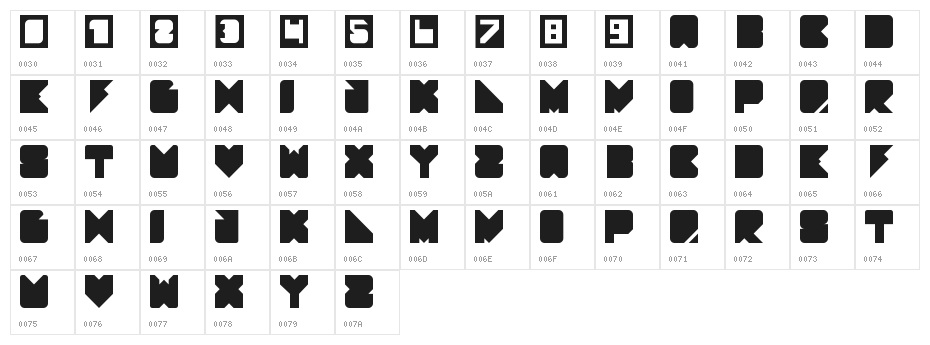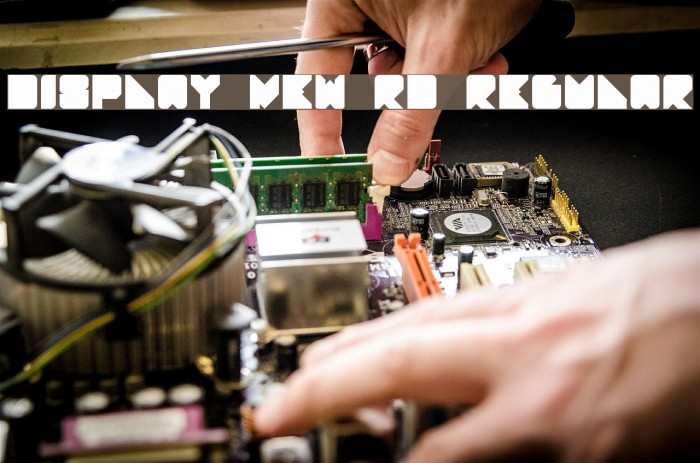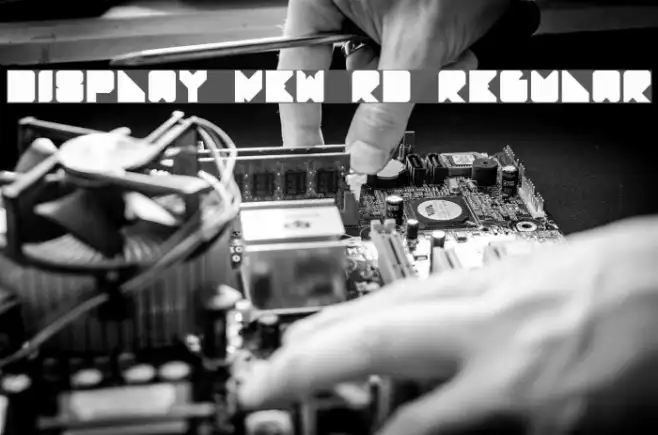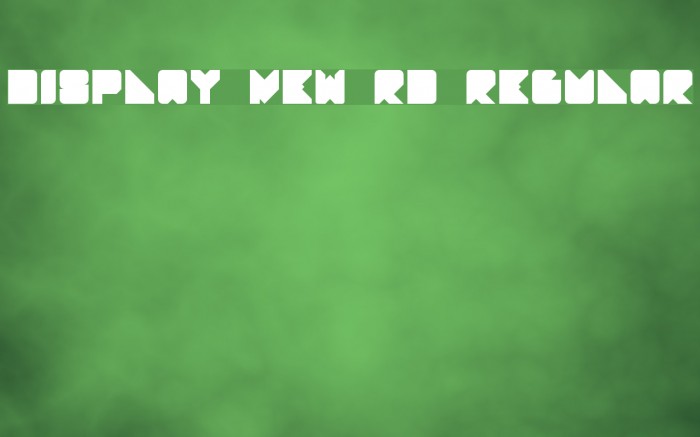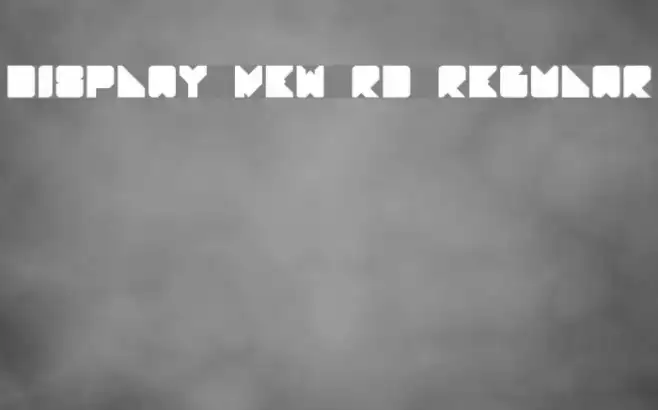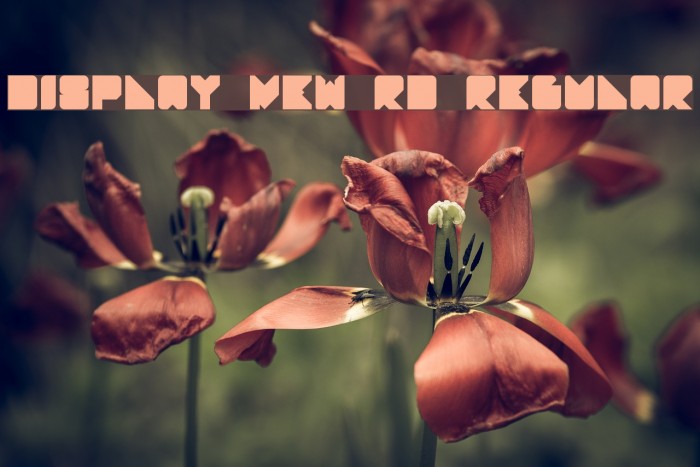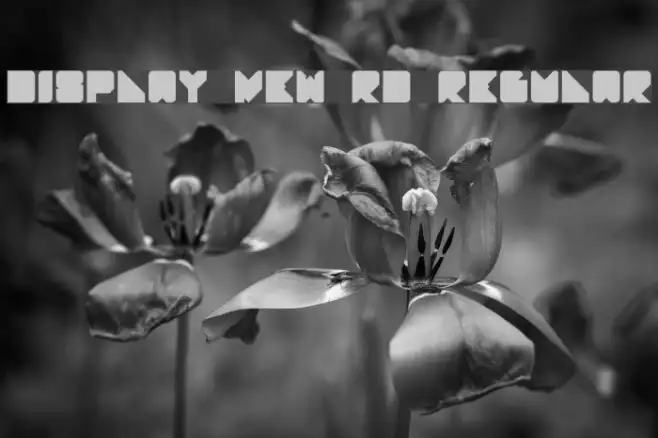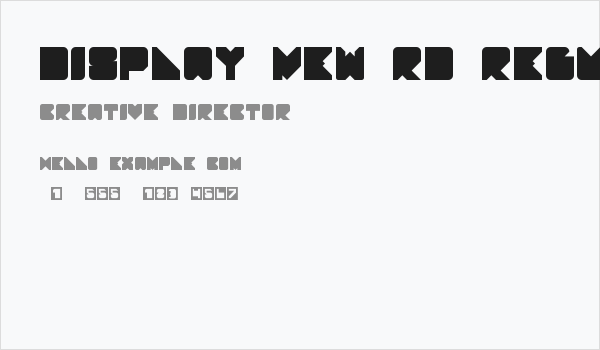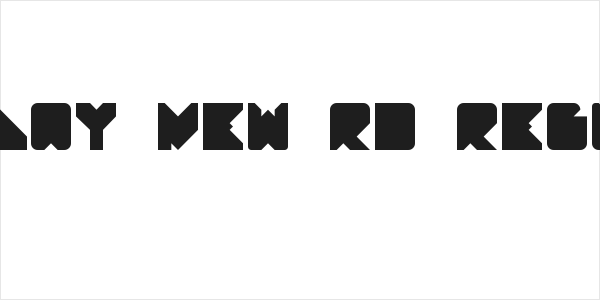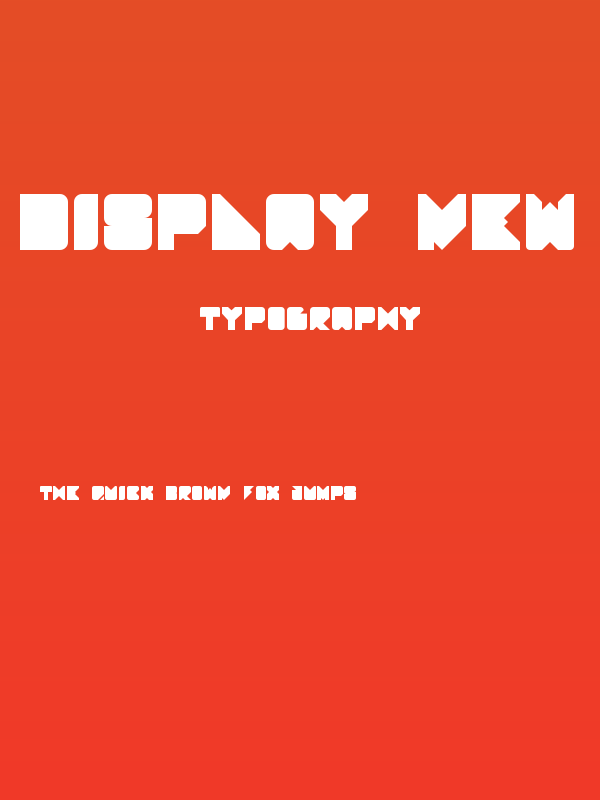
Display new RD Regular Font
Display new RD Regular Description
This font features a bold and geometric design with a strong emphasis on angular shapes and solid forms. Each character is crafted with a unique combination of straight lines and sharp angles, creating a striking and modern appearance. The uppercase letters are particularly bold, with a uniform height and width that gives them a block-like structure. The numbers follow a similar pattern, enclosed in rectangular shapes that enhance their visibility and impact. The overall style is highly decorative, making it suitable for attention-grabbing headlines or logos. The font's distinct style is characterized by its high contrast and wide character spacing, which adds to its readability despite its boldness.
| Proposed Projects | This font is perfect for projects that require a modern and eye-catching design, such as branding, poster design, or digital media graphics. |